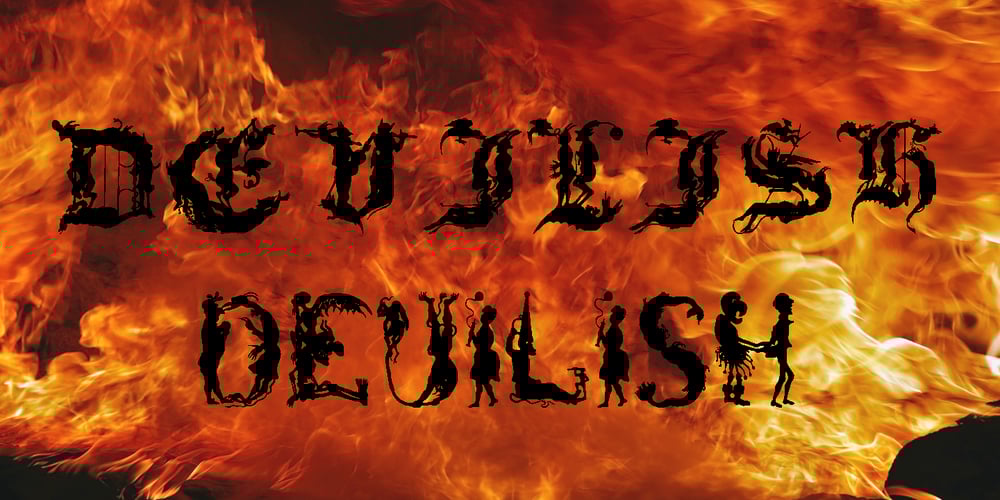
Devilish Font Family was designed by Jose Jimenez and published by Celebrity Fontz. Devilish contains 1 styles and family package options. Devilish is a digital revival of 2 decorative lettering sets. The uppercase letters are based on characters from the end of the 18th century, and the lowercase letters are based on characters from the 19th century. The letters are made up of light-hearted devilish figures engaged in playful and mischievous activities.